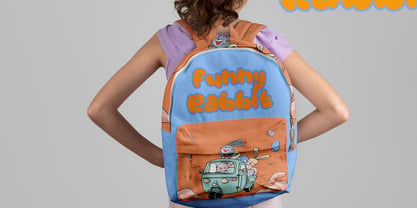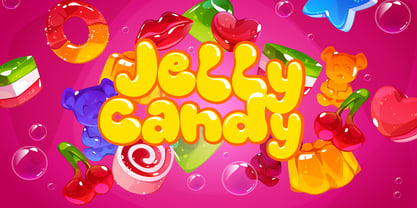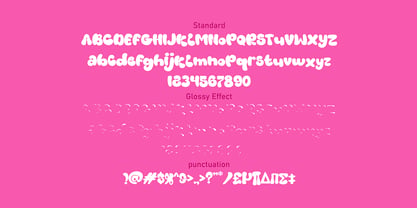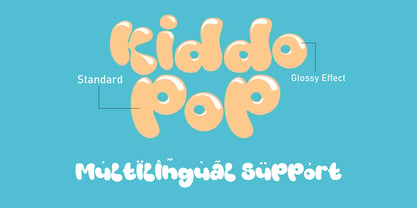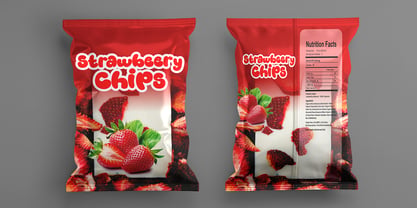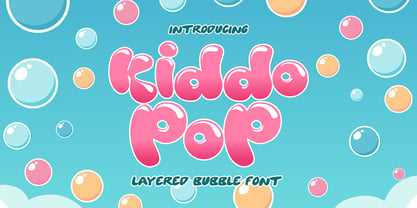
Kiddo pop
Kiddo Pop is a layered bubble font that bursts with joy, color, and playful energy. Inspired by bubbly shapes, cartoon aesthetics, and childhood fun, this typeface brings a cheerful and vibrant vibe to any project. With its rounded, inflated letterforms and glossy appearance, Kiddo Pop feels like candy-coated typography ready to brighten your designs.
This font isn’t just about looking fun—it’s about giving designers the ability to experiment. The layered system makes it easy to create colorful combinations with shadows, outlines, and highlights that mimic 3D bubble effects. By stacking different styles and adding vibrant palettes, you can transform simple text into bold and eye-catching lettering.
Perfect for children’s books, toy packaging, candy branding, cartoons, posters, YouTube thumbnails, birthday invitations, party merchandise, apps, and playful social media graphics, Kiddo Pop captures the imagination and joy of childhood.
It comes complete with uppercase, lowercase, numerals, punctuation, multilingual support, and alternates. Whether you want pastel bubble letters for kids’ designs or bold, neon bubble effects for modern pop culture, Kiddo Pop adapts to your creative vision.
• Rounded bubble style for fun and joyful vibes
• Layered system for endless color and depth effects
• Perfect for kids, toys, candy, cartoons, and playful branding
• Multilingual support for global projects
Kiddo Pop is more than a font—it’s a playground for creativity. Add the layered bubble energy to your work and let your text bounce off the page with happiness.